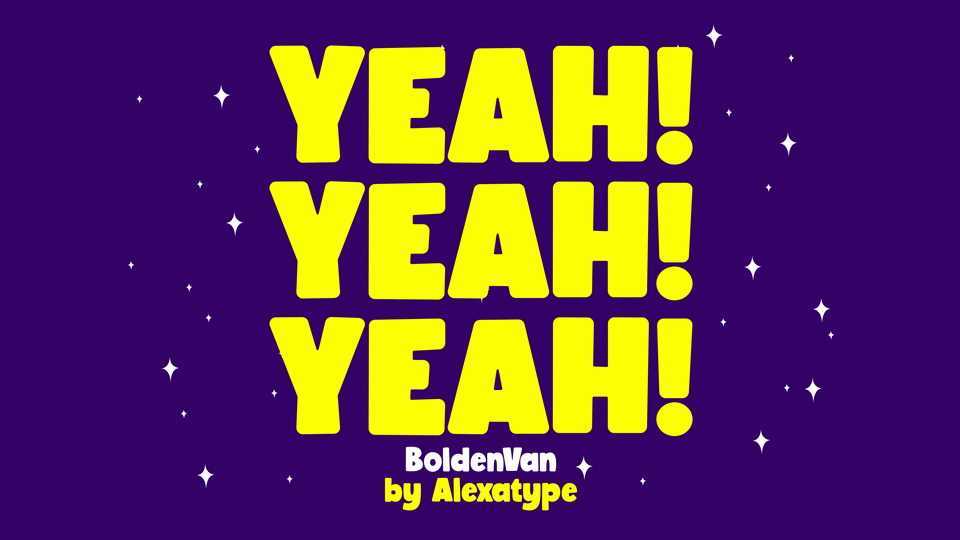
Download BoldenVan font, a bold and fun display typeface with rounded corners and chubby looks. BoldenVan brings joy, smile, and excitement on your upcoming projects.
Designer: Alexatype